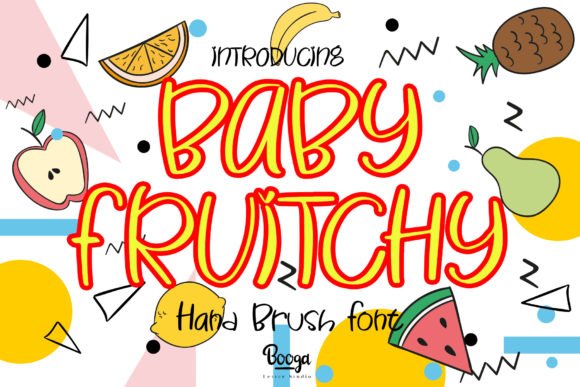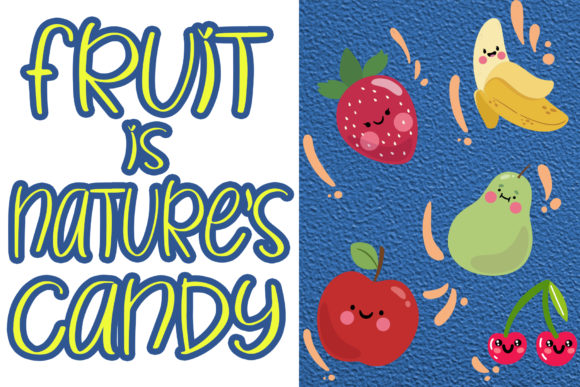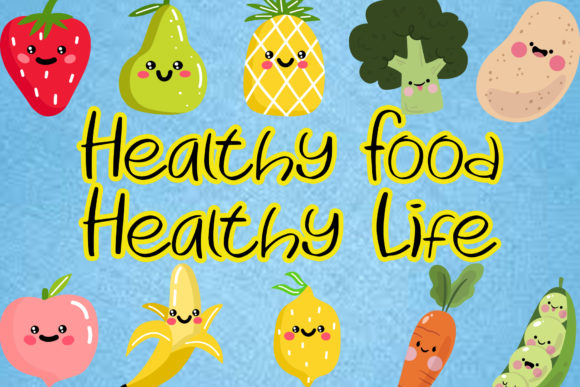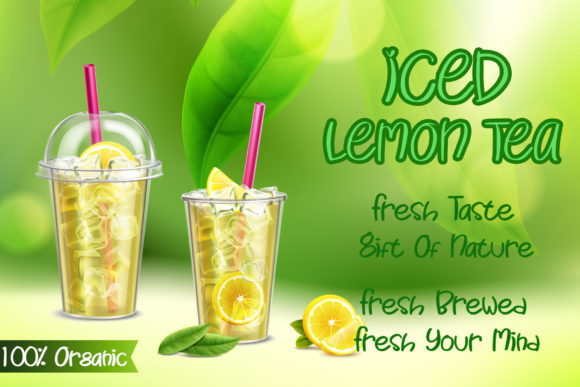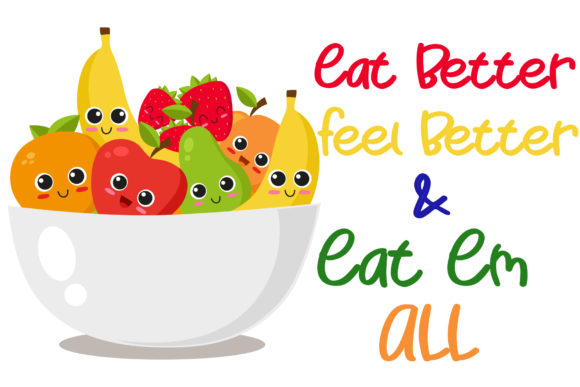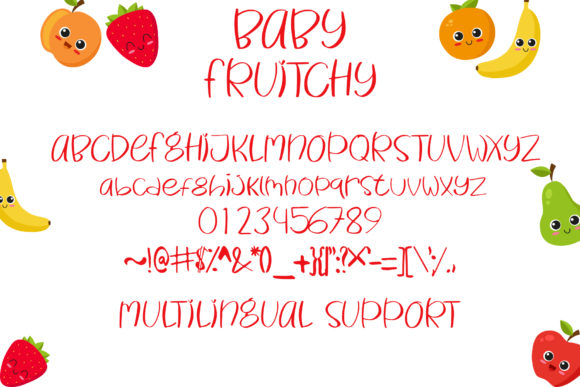
Unleash the Joy of Creativity with Baby Fruitchy Font
Have you ever been brainstorming a new project and suddenly, a burst of colorful inspiration hits you? It’s that magical moment when everything falls into place, and your ideas start to take shape. For designers, this is what makes the creative process so exhilarating. But what if you could take your projects to the next level with a font that embodies playfulness and authenticity?
Meet Baby Fruitchy Font, a delightful display font that is perfect for any children’s activity, school project, or creative endeavor. This charming font adds a touch of whimsy and personality to your designs, making them stand out from the crowd. Whether you’re a seasoned designer or just starting out, Baby Fruitchy Font is a valuable addition to your toolkit.
With Baby Fruitchy Font, the possibilities are endless. Add it to your next project and watch how it brings a smile to your audience’s face. Get ready to unleash your creativity and make a lasting impression with this beautiful display font!
Baby Fruitchy Font Key Features
- Unique Characteristics: Baby Fruitchy Font features a playful, hand-drawn style with intricate details and bold lines, making it perfect for adding a touch of whimsy to designs.
- Font Style: The font has a script style with a mix of uppercase and lowercase letters, providing a natural and fluid feel to text.
- Font Weight: The font comes in a single weight, but its unique design makes it suitable for use in headings, titles, and body text.
- Scalability: Baby Fruitchy Font is highly scalable, making it suitable for use in various design contexts, from small text to large headings.
Baby Fruitchy Font Review
Overall, I think Baby Fruitchy Font is a cute and playful font that can add a touch of whimsy to your designs. ✨ Here are some things that work well:
- The font has a unique and quirky feel that’s perfect for children’s products, nursery decor, or any project that needs a lighthearted vibe.
- The font is highly customizable, with a wide range of options for color, size, and style.
- The font is available in multiple weights, from light to bold, which makes it easy to create a cohesive look.
- The font may not be suitable for formal or professional projects, as it can come across as too playful or childish.
- The font may not be as legible at small font sizes, which could make it difficult to read.
Overall, I think Baby Fruitchy Font is a great choice for designers who need a fun and playful font for their projects. While it may have some limitations, it’s a versatile and customizable font that can add a lot of personality to your designs.
Tips for Getting the Most Out of Baby Fruitchy Font
Here are some tips for getting the most out of Baby Fruitchy Font:
- Use it for titles and headings to add a playful touch.
- Pair it with a neutral font for body text to create a visually appealing contrast.
- Experiment with different font sizes and styles to add emphasis.
Here are some common use cases for Baby Fruitchy Font: